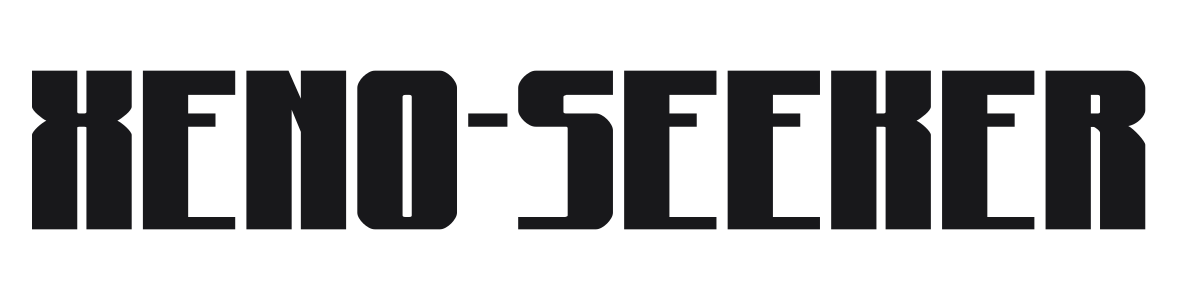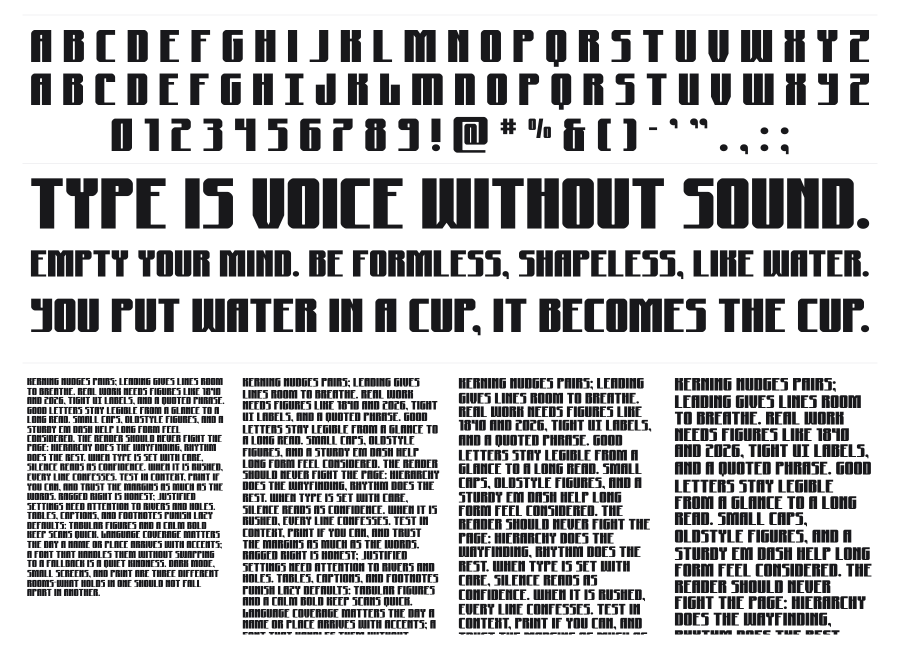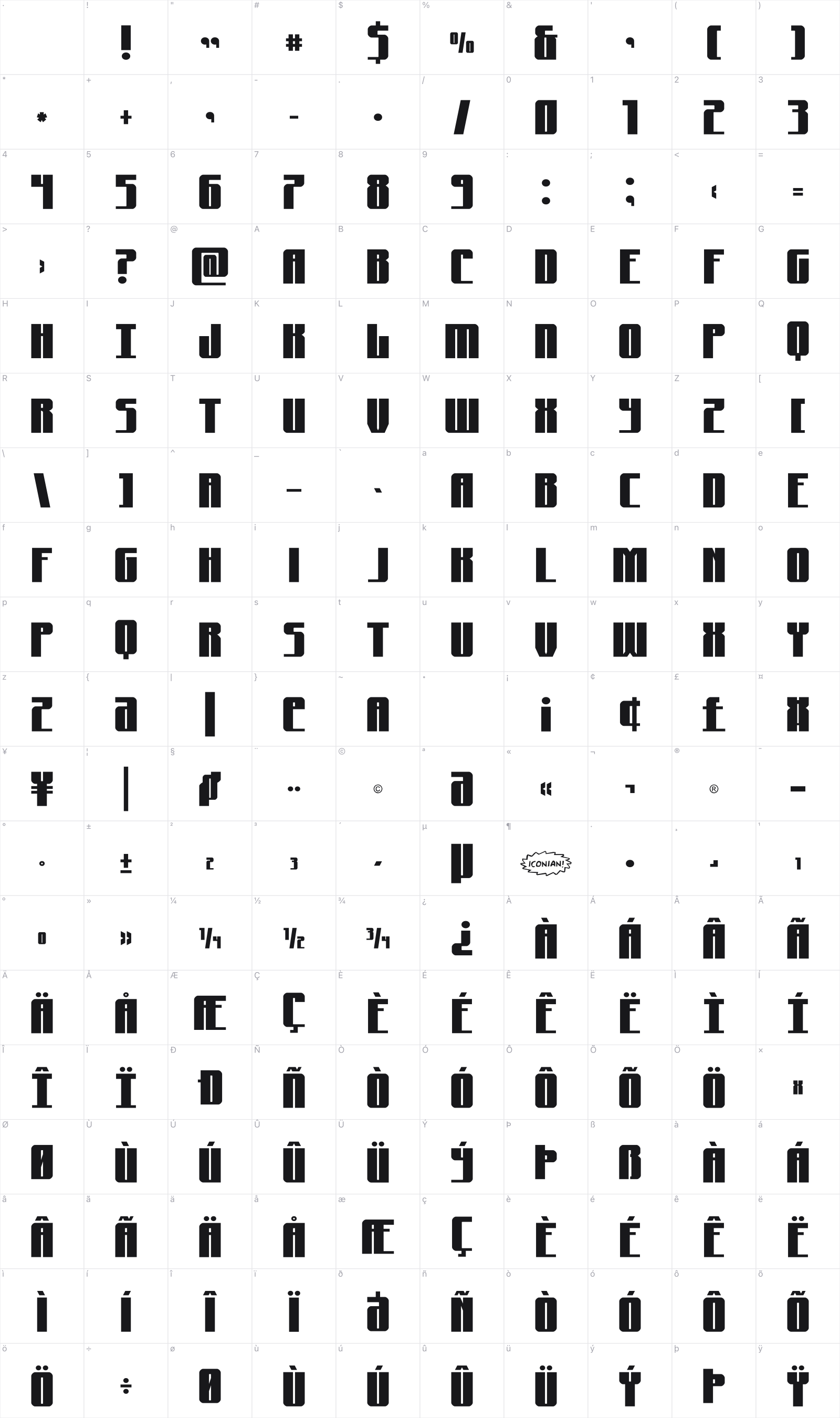
Xeno-Seeker
Xeno-Seeker is a heavy, squared geometric sans with an unmistakably aggressive sci-fi edge. Built on a rigid grid with deep angular notches at stroke joints and near-zero stroke contrast, it reads as something between military stencil and alien technology. Available in 26 variants including 3D, halftone, laser, and rotated styles.